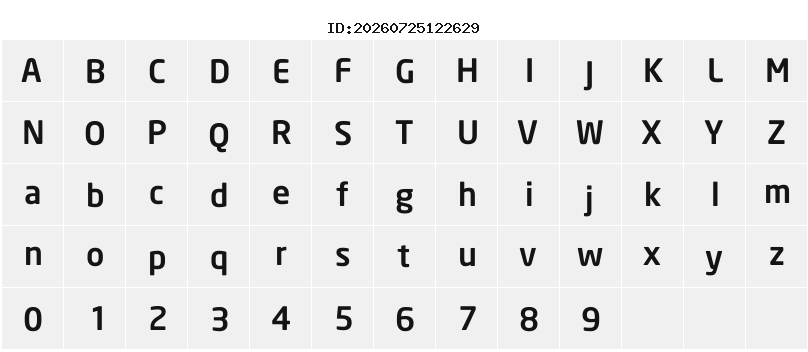
iYuanTi Preview
• Font Name: iYuanTi
• Font ID: iYuanTi
• Full Font Name: iYuanTi Bold
• PostScript Name: iYuanTi
• Character Count: 22112
About iYuanTi.ttf
iYuanTi.ttf is a modern, elegant sans-serif font designed for ultimate readability and visual harmony. Perfect for branding, headlines, web design, and print materials.